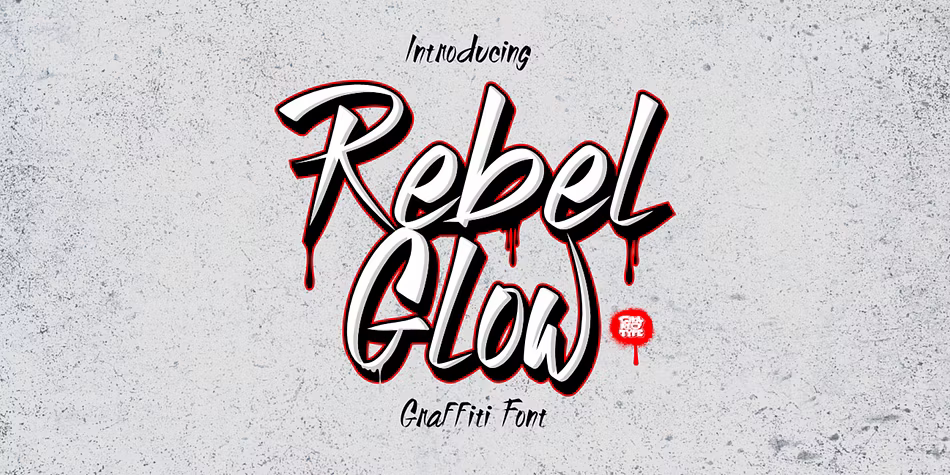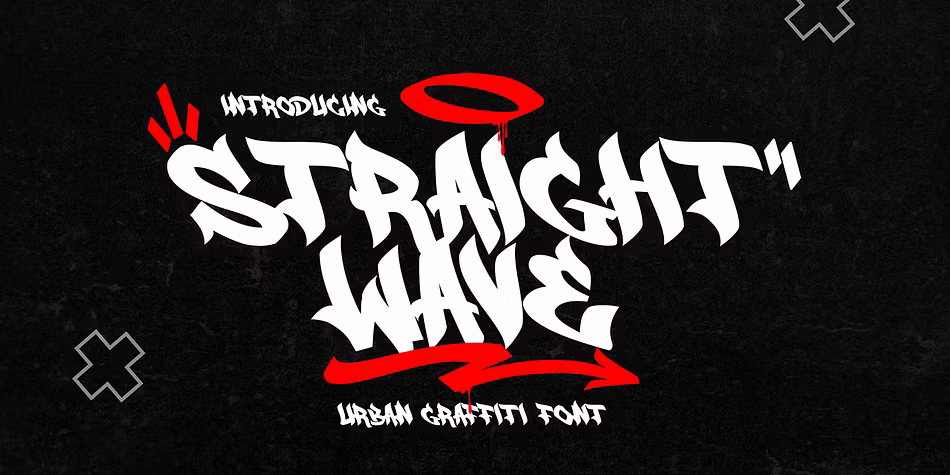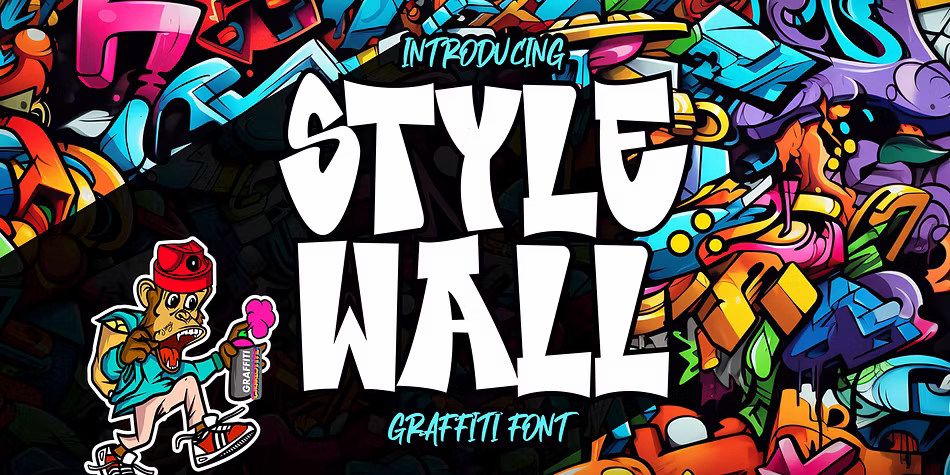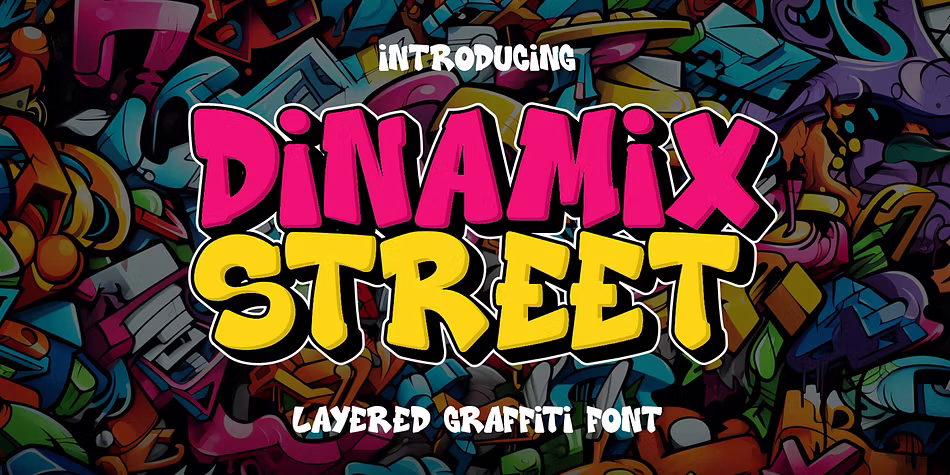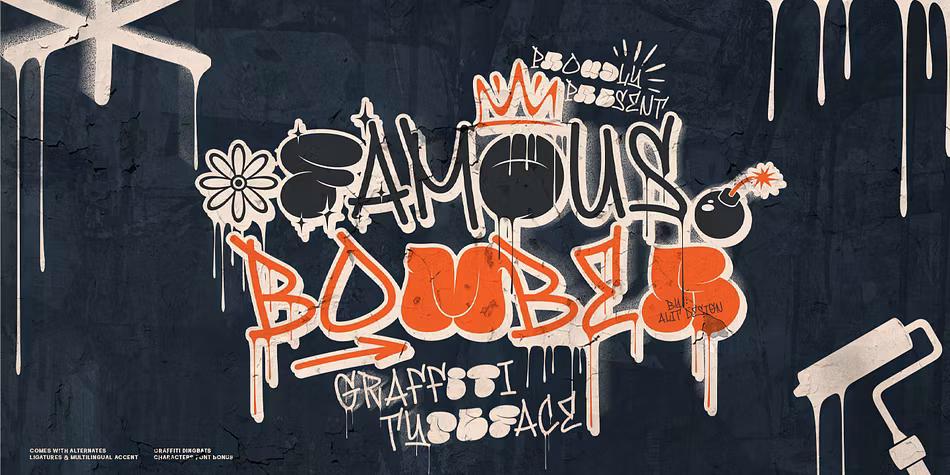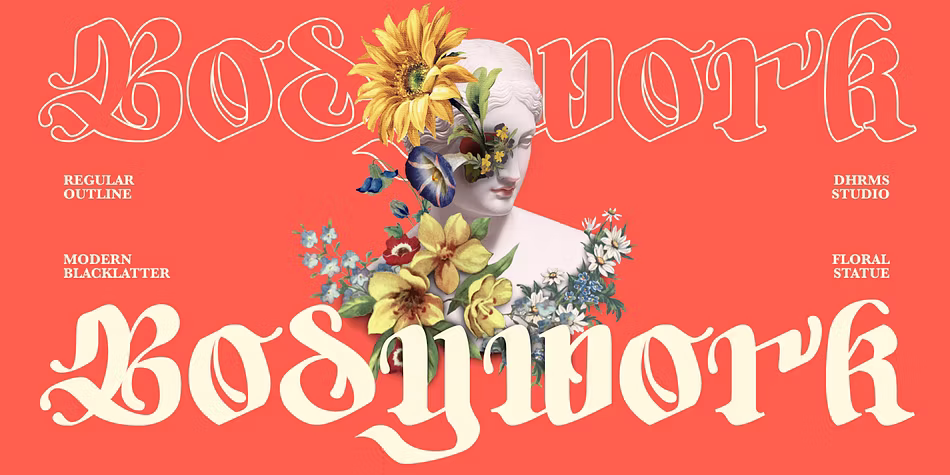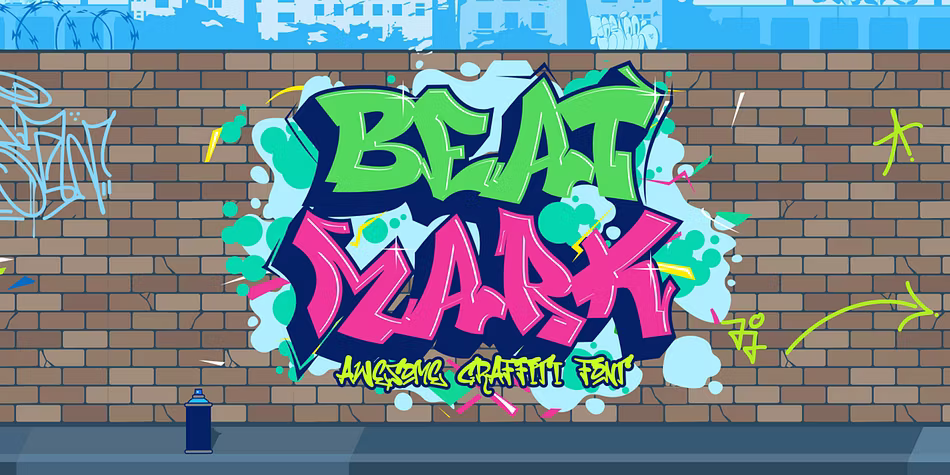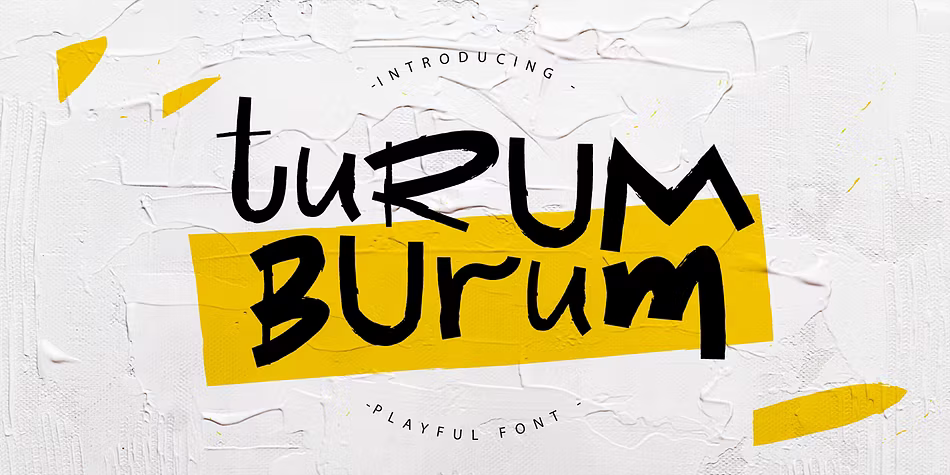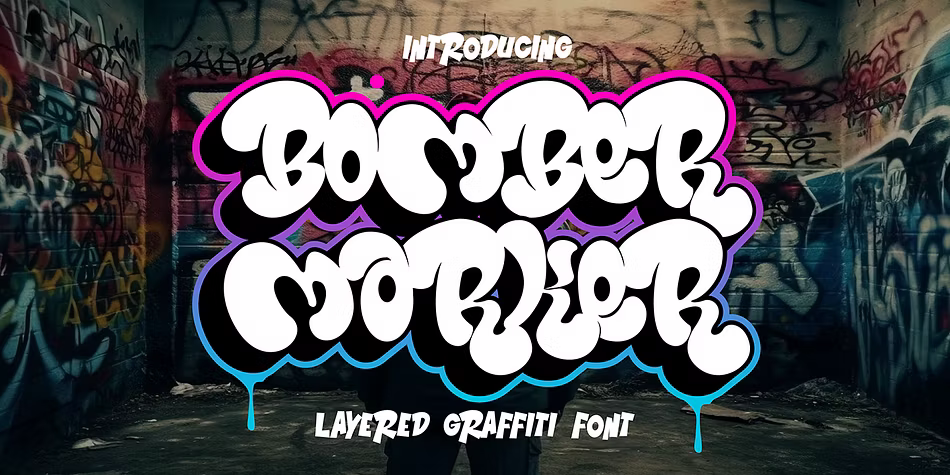
Graffiti fonts for June 25th
Dive into the world of graffiti fonts and discover a selection that brings the essence of urban art to your designs. Each font in this collection captures the spirit of street culture, offering a blend of boldness and creativity. From the sleek lines of Rebel Glow to the dynamic layers of Dynamic Street, these fonts are perfect for any project that seeks to make a statement. Notable fonts include the playful Style Wall, the whimsical Bodywork, and the edgy Beat Mark, all designed to infuse your work with an authentic urban aesthetic. Whether you're creating logos, posters, or branding materials, these graffiti fonts will elevate your designs and resonate with the vibrant energy of street art.
Rebel Glow
Rebel Glow is a striking thin graffiti font that exudes an edgy and contemporary feel. Its minimalist design is perfect for urban-themed projects, street art, and modern branding. Despite its delicate lines, it maintains a robust presence, making it ideal for any creative endeavor that aims to embody the rebellious spirit of street culture. The font's unique style adds a touch of sophistication to designs, allowing it to stand out in any context, whether for advertisements, merchandise, or artistic expressions. Capture the essence of urban flair with Rebel Glow and let your designs resonate with the essence of rebellion.
Straight Wave
Straight Wave is a captivating monoline graffiti font that beautifully captures the essence of handwritten artistry. Featuring swash characters, this font merges consistent line thickness with the organic feel of graffiti, creating a unique blend of style and creativity. It's perfect for designs that demand a genuine handwritten aesthetic, whether for branding, posters, or urban art projects. The added decorative elements offer versatility, allowing designers to play with styles and add flair to their work. With its artistic charm, Straight Wave is an excellent choice for anyone looking to infuse their designs with an authentic touch of urban culture.
Style Wall
Style Wall is an imaginative graffiti font that encapsulates the vibrant energy of urban art. With its unconventional letterforms and playful design, it brings a distinct and bold aesthetic to any creative project. This font is perfect for streetwear branding, posters, album covers, and any design that seeks to make a statement. Its quirky and dynamic style embodies the essence of graffiti culture, making it a standout choice for artists and designers looking to break the mold. Whether used in marketing materials or artistic expressions, Style Wall adds a rebellious charm that captures the raw creativity of street art.
Dynamic Street
Dynamic Street is a lively 3D layered graffiti font that adds excitement and depth to your designs. Its bold characters and multi-layered structure create a striking visual impact, perfect for urban art that demands attention. Each layer—from solid bases to shadows—contributes to a sense of movement, making it ideal for streetwear designs, posters, and any project that embraces the essence of street culture. The font's vibrant aesthetic brings energy to your work, making it perfect for branding and creative projects that require an eye-catching and dynamic presentation. With Dynamic Street, your designs will truly leap off the page.
Famous Bomber
Famous Bomber is an exciting fusion of graffiti bubble and expressive script styles, designed to infuse your projects with an edgy urban vibe. Inspired by the raw energy of street art, this font captures the rebellious spirit and creativity synonymous with graffiti culture. With its unique blend of bold letterforms and fluid script characters, Famous Bomber creates a visually striking aesthetic that stands out. This versatile font offers numerous alternatives and ligatures, providing endless customization options for designs ranging from posters and apparel to branding materials. Each character is crafted to ensure legibility while retaining the distinctive characteristics of graffiti art, making it an ideal choice for anyone looking to add urban flair.
Bodywork
Meet Bodywork, a modern blackletter font infused with playful elements reminiscent of flower petals. This font features both regular and outline styles, making it versatile for various design needs. Equipped with OpenType features such as ligatures and alternative characters, Bodywork enhances your creative projects with a unique touch. It's perfect for branding, logos, book covers, and other graphic designs. The font's groovy curves and distinct letterforms ensure that your designs stand out, while its compatibility with multiple platforms makes it accessible for all designers. Unleash your creativity with Bodywork and let your designs flourish with its modern charm.
Beat Mark
Beat Mark is a powerful graffiti font that captures the raw energy of urban art through its bold and dynamic characters. With a design that resonates with the authentic vibes of street culture, this font is perfect for a range of creative projects, including apparel, posters, and social media graphics. Its striking visual impact ensures that your designs will stand out, making a lasting impression. Beat Mark embodies the spirit of graffiti, adding a vibrant touch to any design that seeks to convey a message of rebellion and creativity. Whether for advertisements or personal projects, this font brings a compelling urban aesthetic that speaks volumes.
Street Tag Vol 1
Street Tag Vol 1 is a unique font inspired by graffiti tags found in urban areas, particularly Jakarta. This font embodies a raw, authentic style that reflects the creator's experiences with graffiti culture. It features distinct letterforms that are intentionally untidy, capturing the spontaneous nature of street art. This font comes with bonus vector elements, including outlined typefaces and special character symbols that enhance its versatility. Perfect for hip-hop poster designs, branding, and any project that seeks to embrace the essence of urban creativity, Street Tag Vol 1 adds a personal touch to your designs, making them truly one-of-a-kind.
Turum Burum
Turum Burum is a whimsical hand-drawn font that radiates a playful vibe. It features uppercase and lowercase letters, a variety of punctuation marks, and supports multiple languages, making it versatile for many design projects. This font is perfect for creating logos, quotes, posters, and branding elements. Its fun and quirky style adds a unique touch, ensuring that your designs stand out. With its friendly appearance, Turum Burum is an excellent choice for any graphic design that aims to convey joy and creativity, capturing the essence of lighthearted artistry.